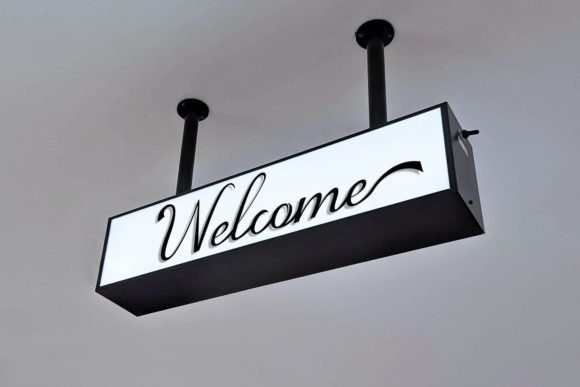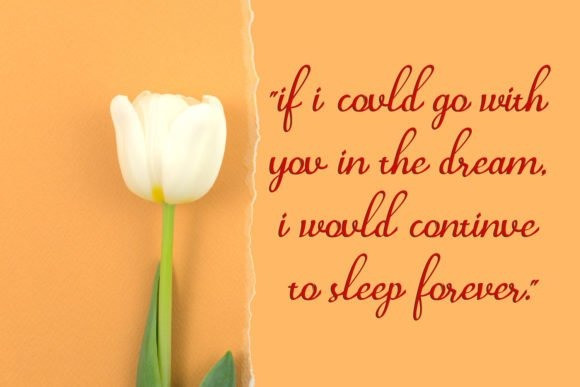
Mugello Calligraphy Font
Introducing our newest product Mugello. Mugello is a classy,modern and clean calligraphy font. Mugello is suitable for all your design project needs such as: logo design, branding, covers, posters, magazines, wedding invitations, greeting cards, quotes and more.